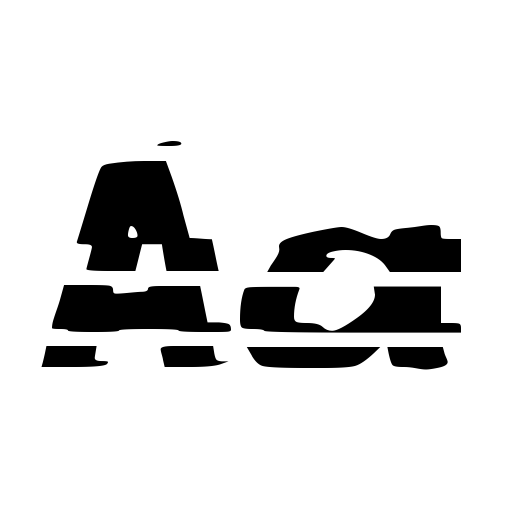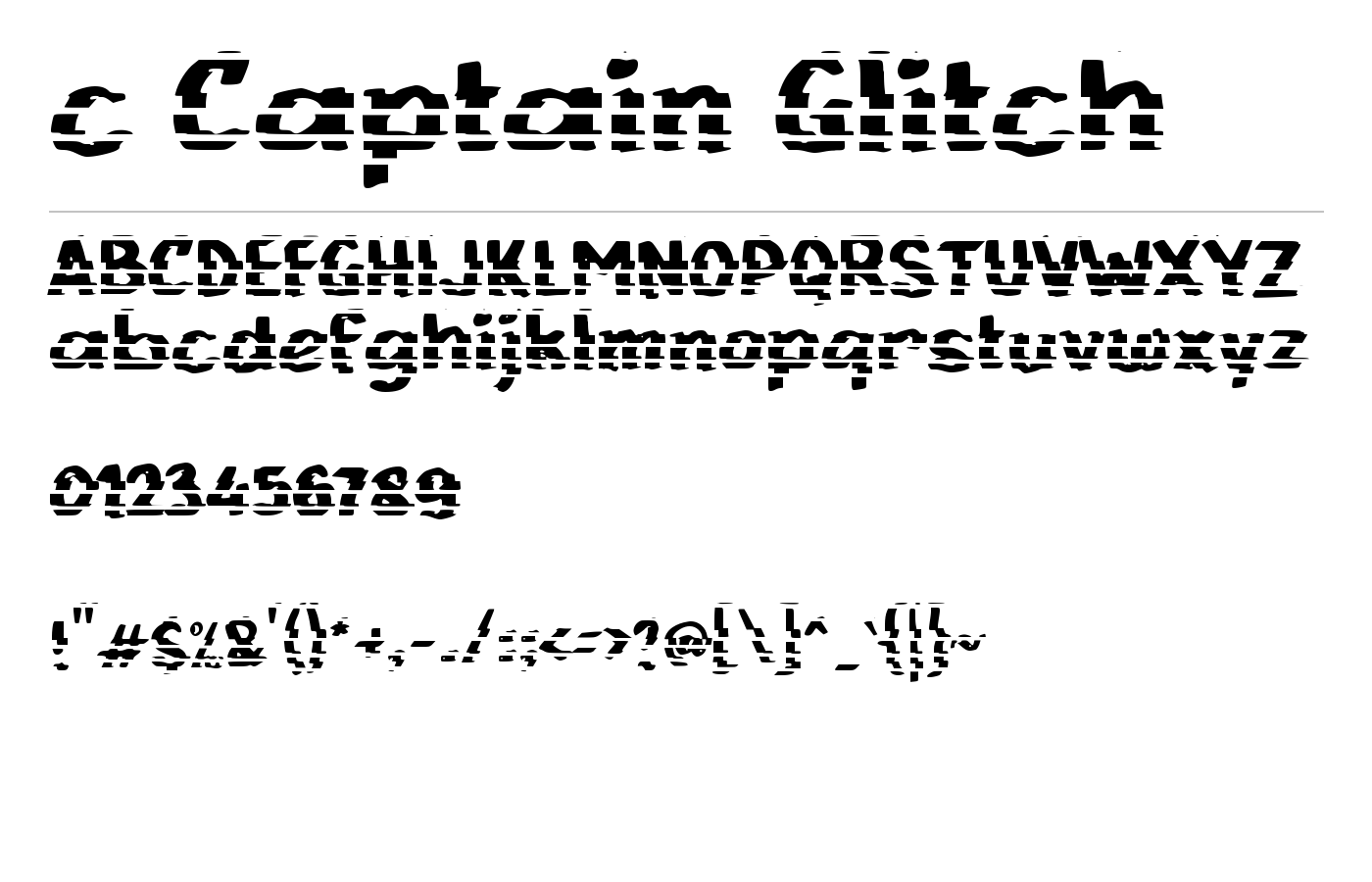
c Captain Glitch is a bold, condensed sans serif font characterized by a distinctive "glitched" effect that disrupts the letterforms with horizontal breaks, giving it a futuristic and digital distortion vibe. Its strong, blocky shapes combined with the glitch styling evoke a modern, tech-forward personality, making it perfect for edgy branding, tech-related projects, or eye-catching headlines where a sense of disruption or innovation is desired. This font works best in logos, posters, and digital media to create a striking, memorable impact.
c Captain Glitch Font
About c Captain Glitch Font